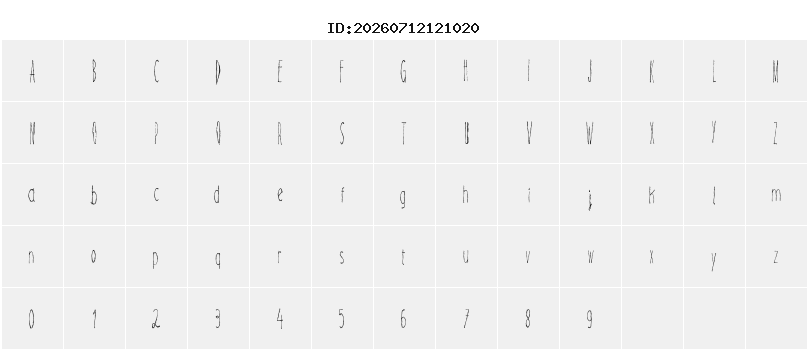
Magical Cord Preview
• Font Name: Magical Cord
• Full Font Name: Magical Cord
• Version: Version 1.00 February 23, 2015, initial release
• Designer: Typeface © Galdino Otten. 2015. All Rights Reserved
• Manufacturer: Galdino Otten
About Magical Cord.ttf
Magical Cord.ttf is a modern, elegant sans-serif font designed for ultimate readability and visual harmony. Perfect for branding, headlines, web design, and print materials.